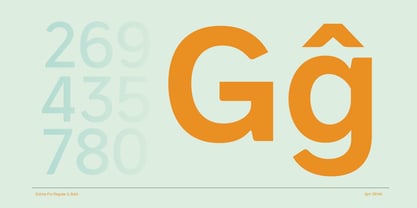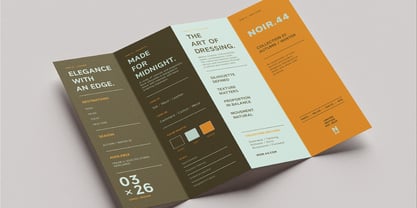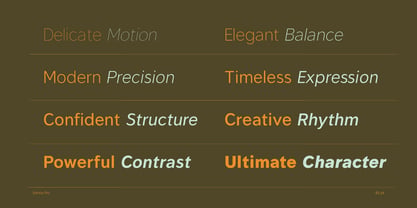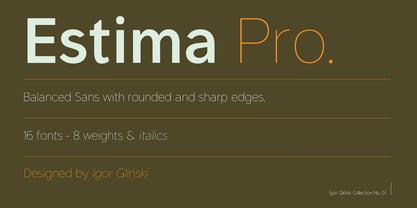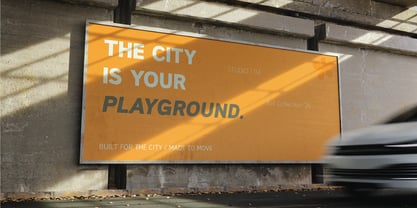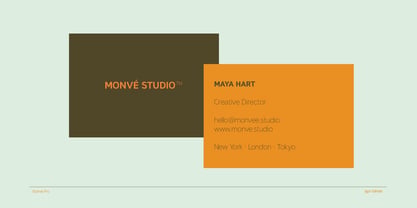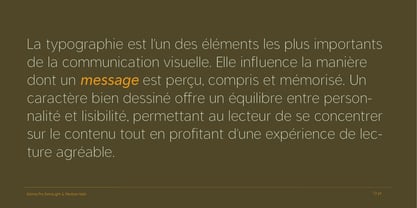
Estima Pro
Estima Pro is a clean sans-serif typeface that balances soft, approachable forms with sharp, distinctive endings. Its open letterforms enhance readability, making the font clear and comfortable to read across a wide range of applications. The subtle contrast between rounded and crisp details gives the typeface a contemporary character while keeping it versatile and functional.